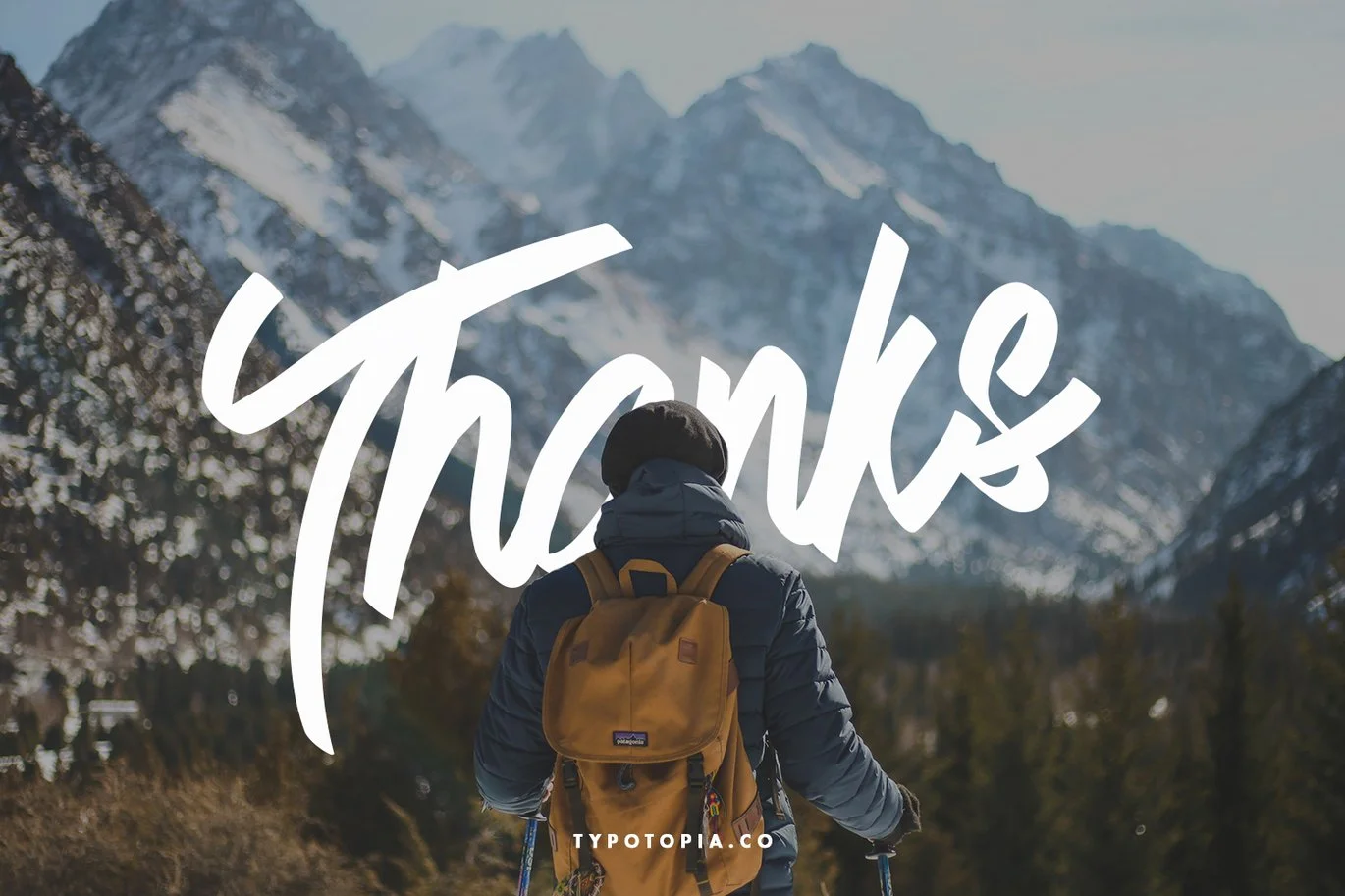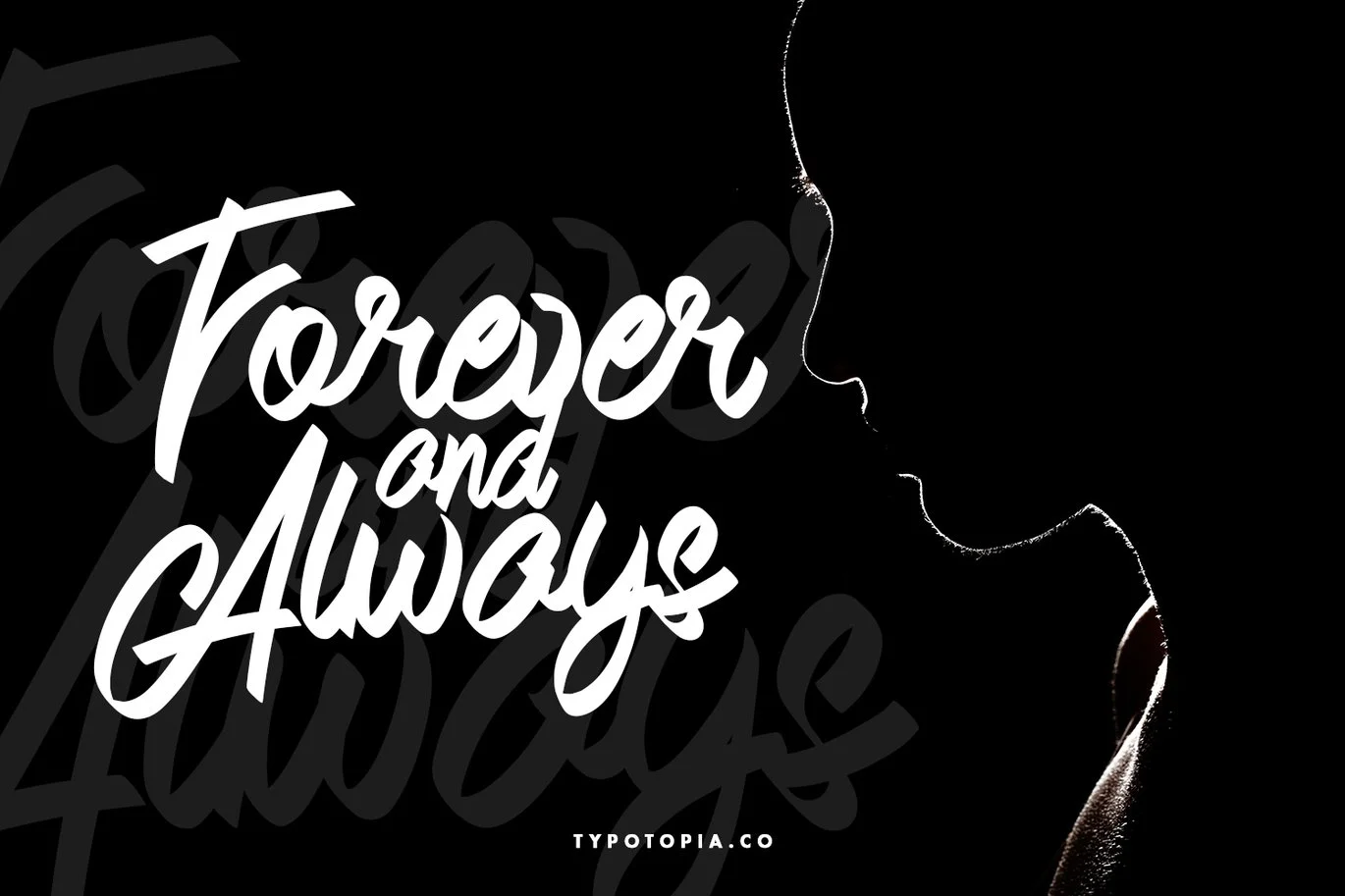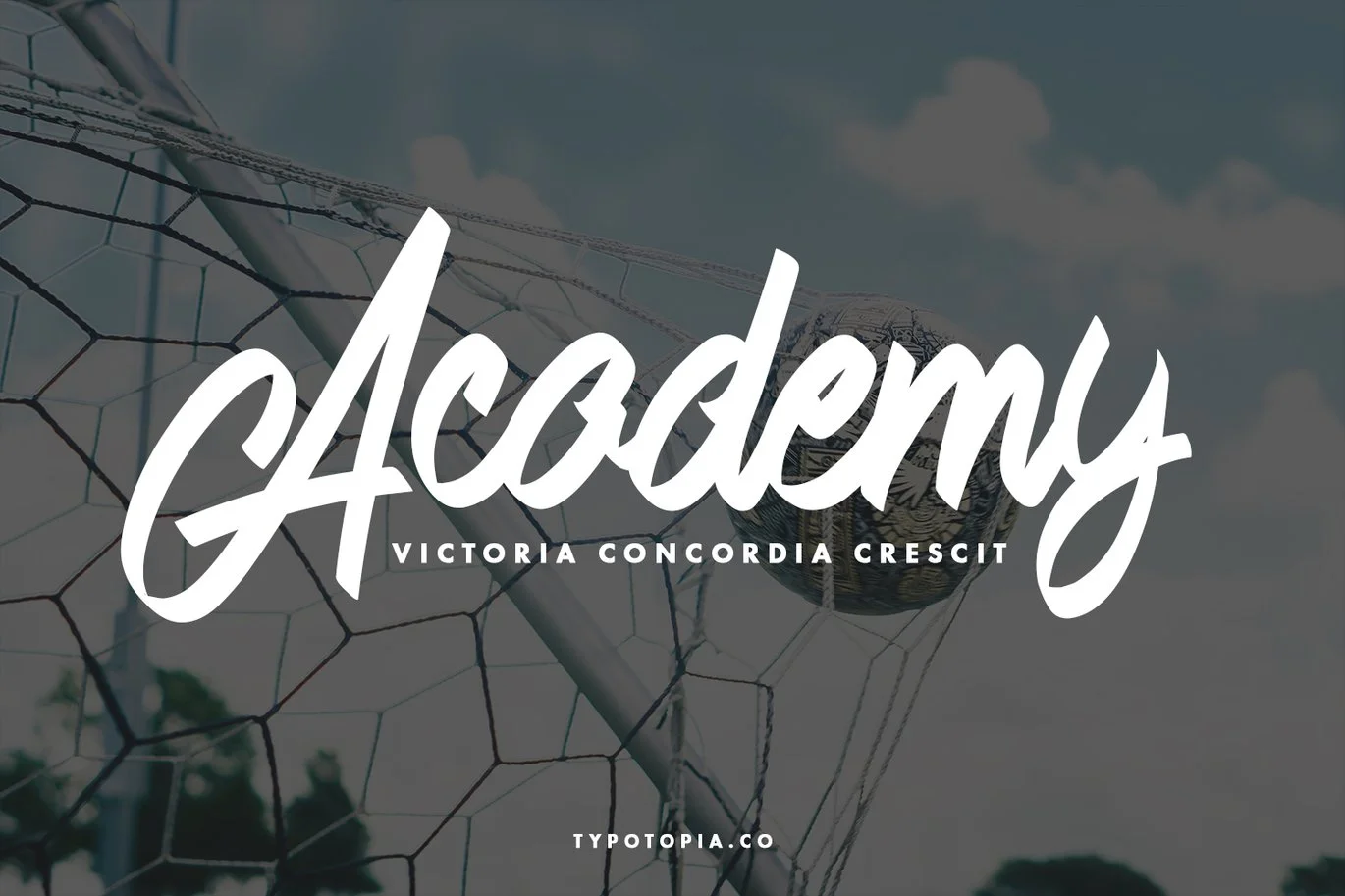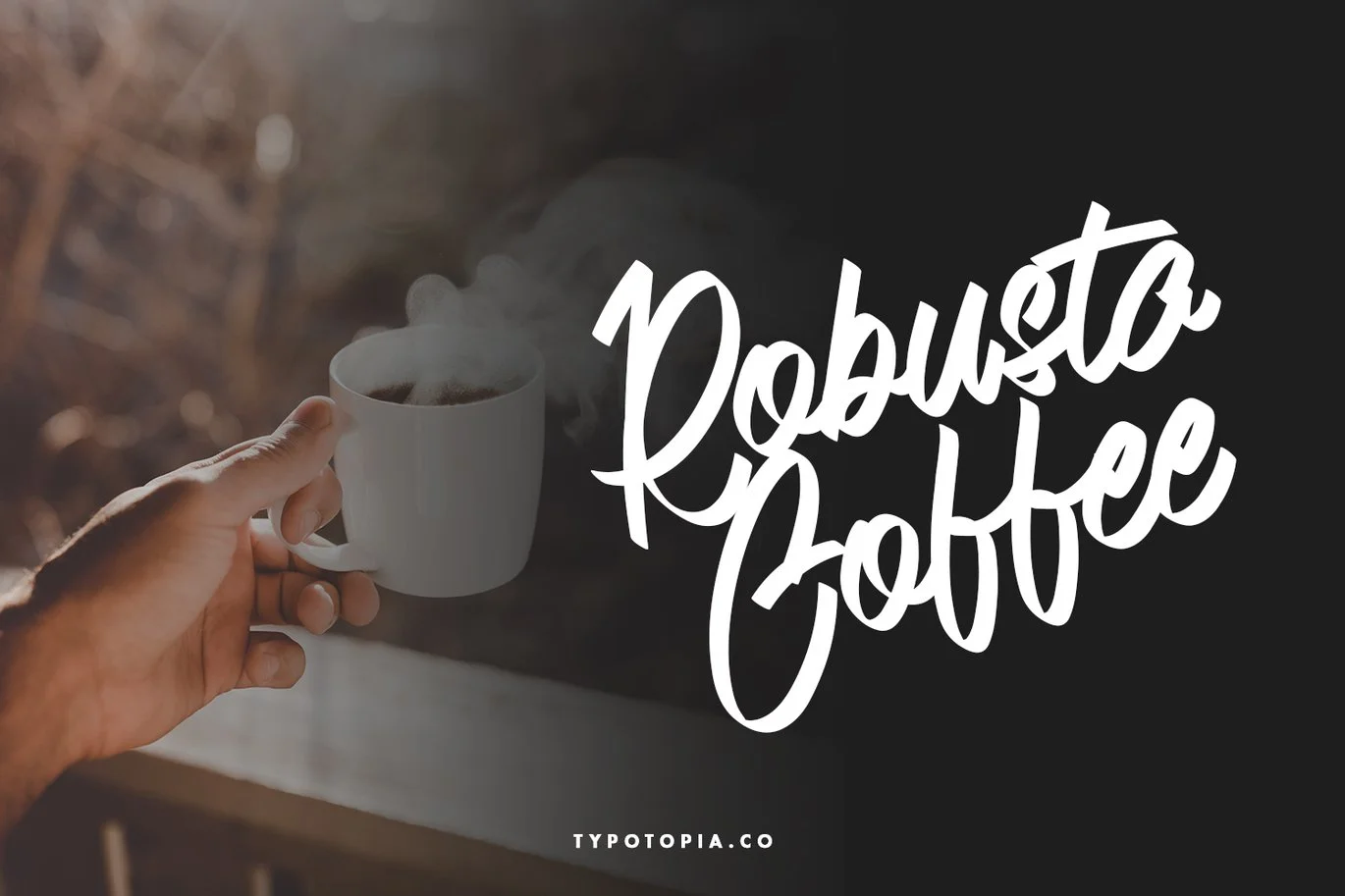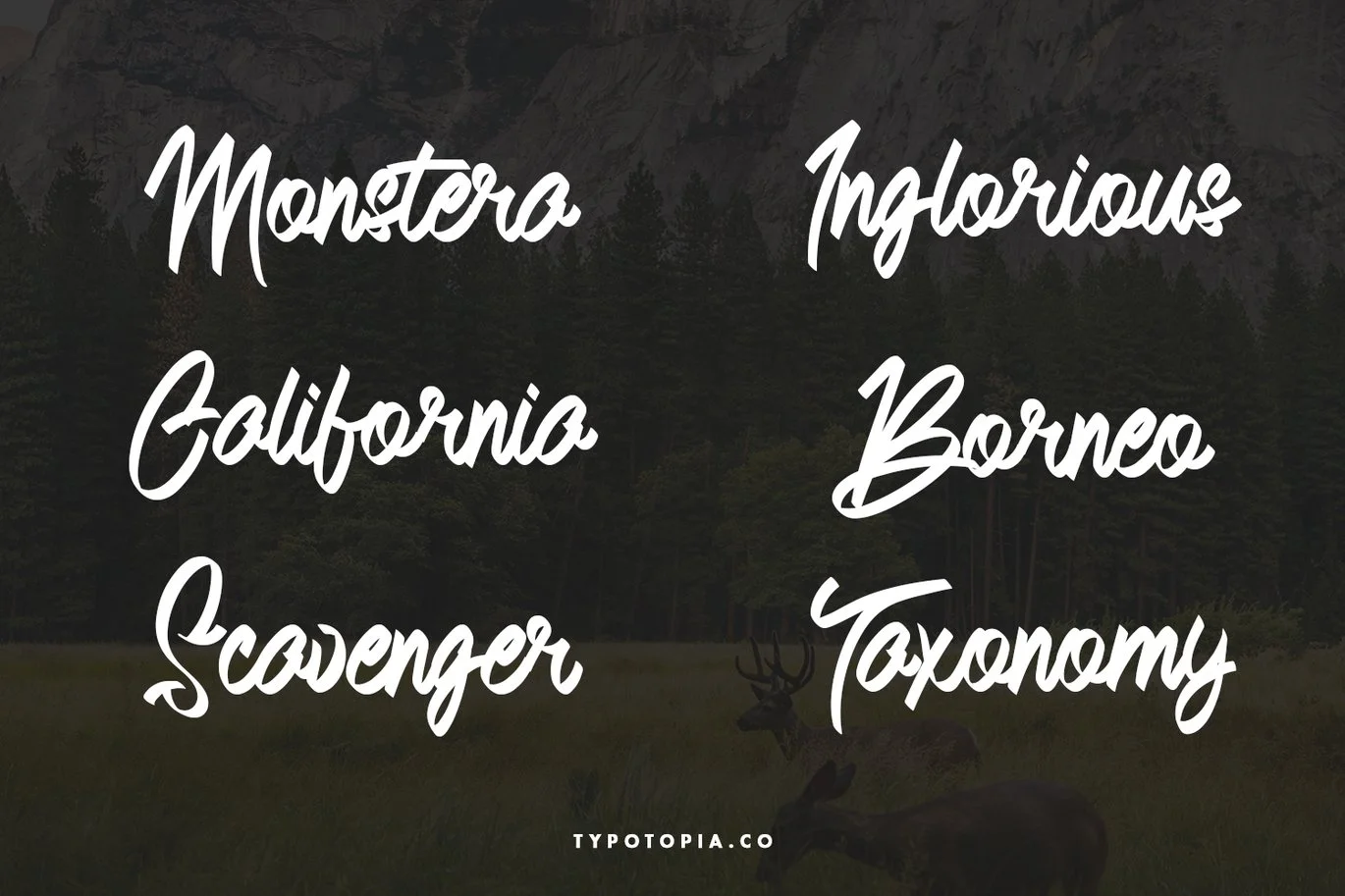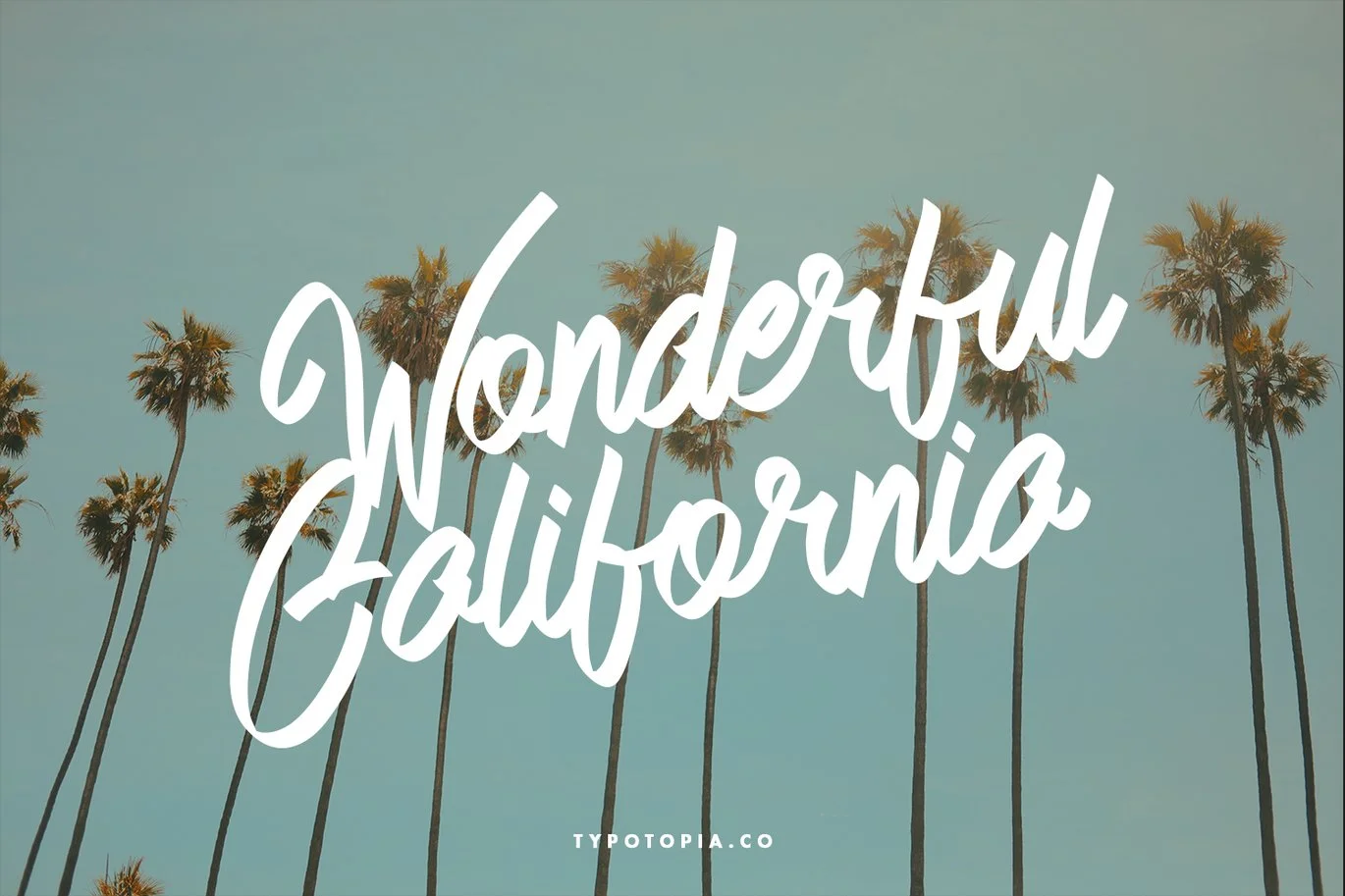
Andals Script Typeface
Andals Script Typeface is perfect for wedding invitations, elegant branding, luxury packaging, personal logos, and sophisticated social media graphics. Its flowing, hand-lettered style adds a graceful and artistic touch to any project.
What makes Andals Script Typeface exciting is its smooth, natural strokes and charming curves, which give text a sense of movement and personality. The font balances elegance with readability, making it ideal for both creative and professional uses.
The Andals Script Typeface family includes Regular, Bold Script, and Swash variations, allowing designers to experiment with decorative elements and different levels of emphasis. This flexibility makes it versatile for a wide range of design projects.
For designers looking to add a refined, handwritten style to their work, Andals Script Typeface is a beautiful addition to any creative toolkit.